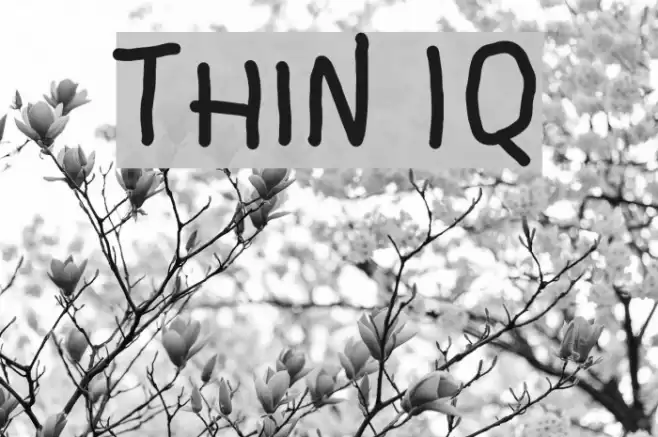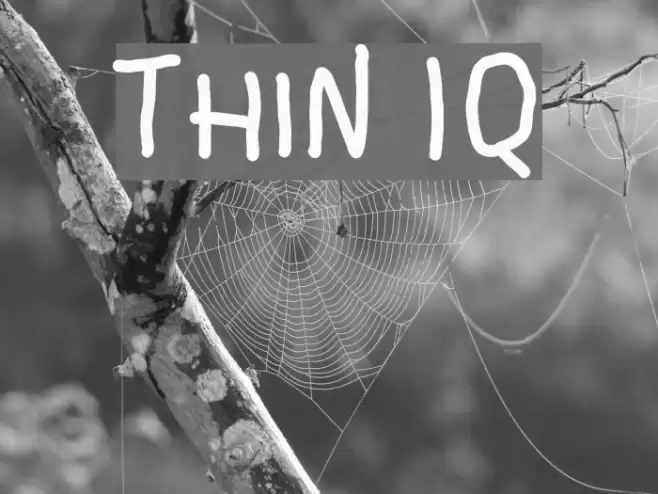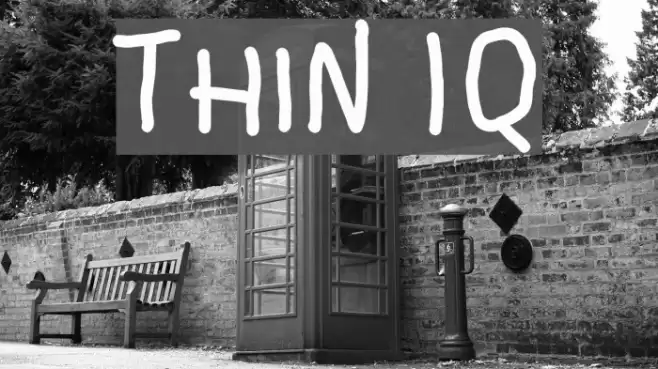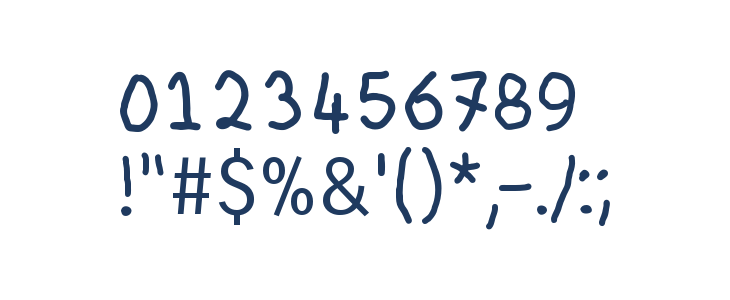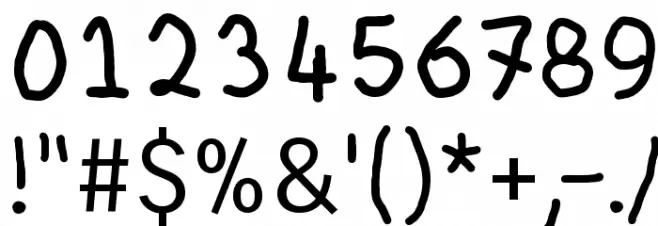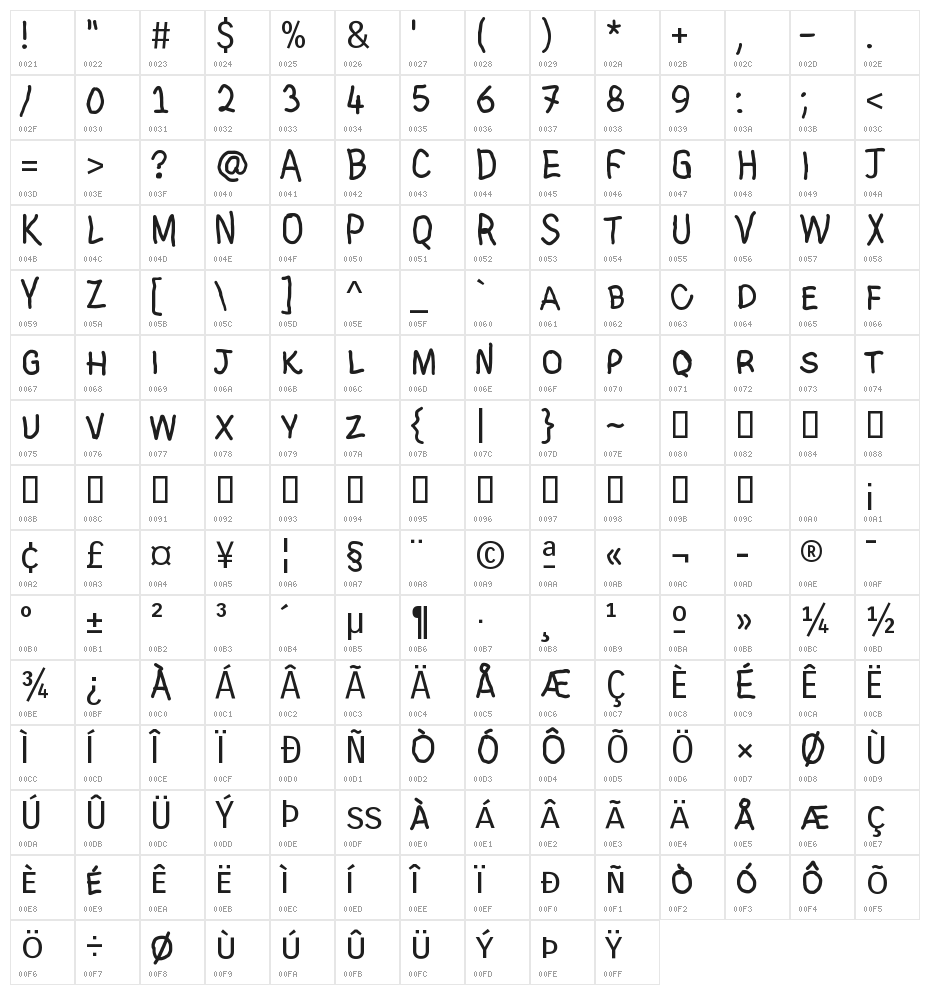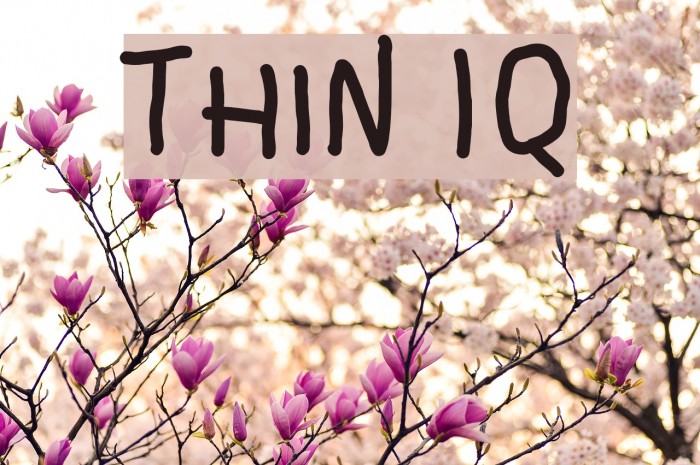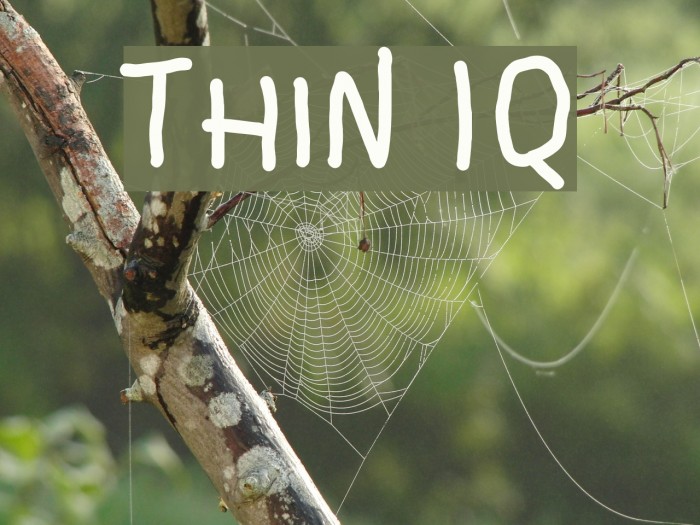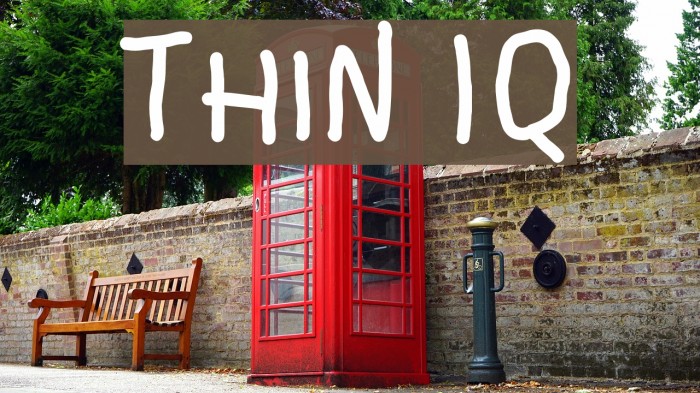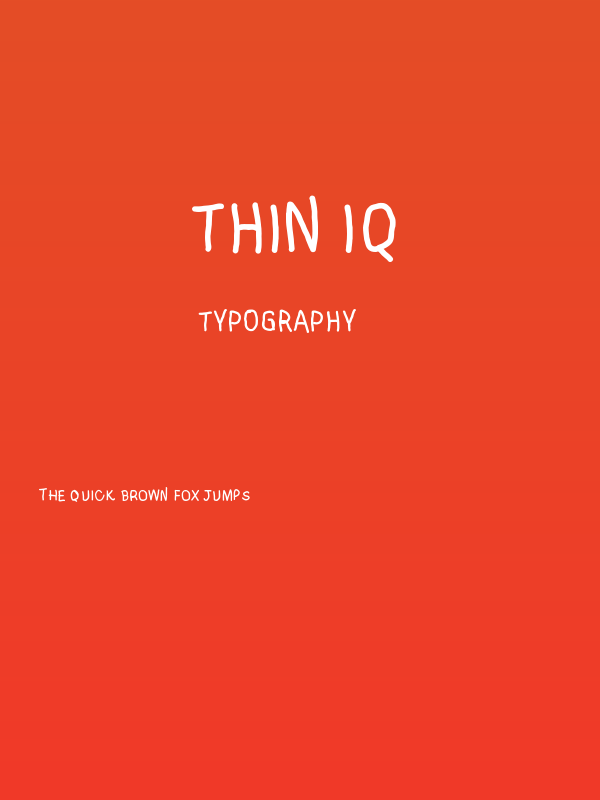
Thin IQ Font
Thin IQ Description
This font features a playful and casual handwritten style, characterized by its irregular strokes and slightly uneven baseline. The letters are bold and rounded, giving them a friendly and approachable appearance. The uppercase and lowercase letters maintain a consistent style, while the numerals and special characters are easily distinguishable. The overall look is informal, making it suitable for projects that require a personal touch or a relaxed vibe.
A playful, handwritten font with bold, rounded characters from Uncategorized fonts.
- Proposed Projects: Ideal for greeting cards, children's books, casual branding, and social media graphics.
- Overall Style: Casual
- Use Case: Headlines, Logos, Informal Text